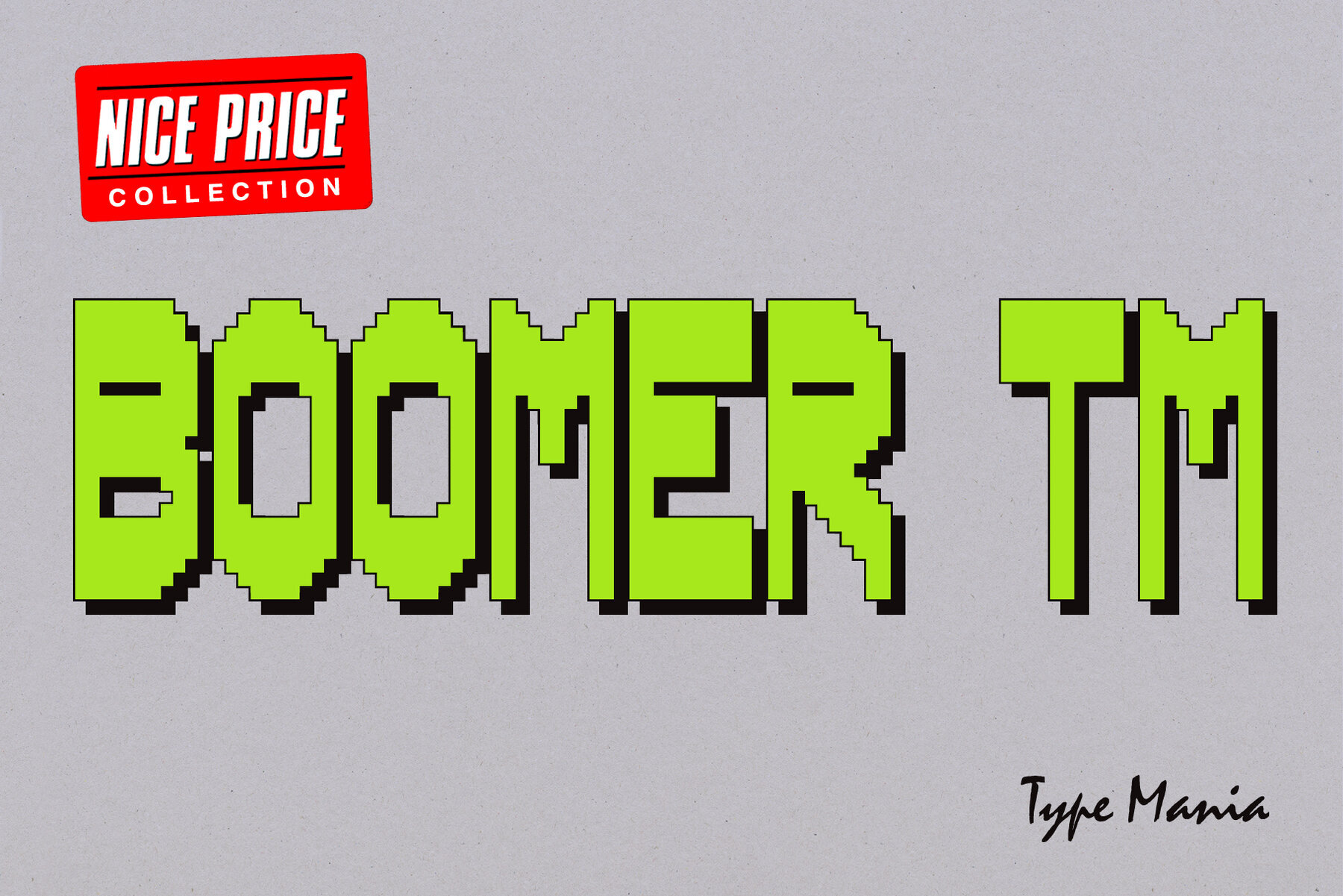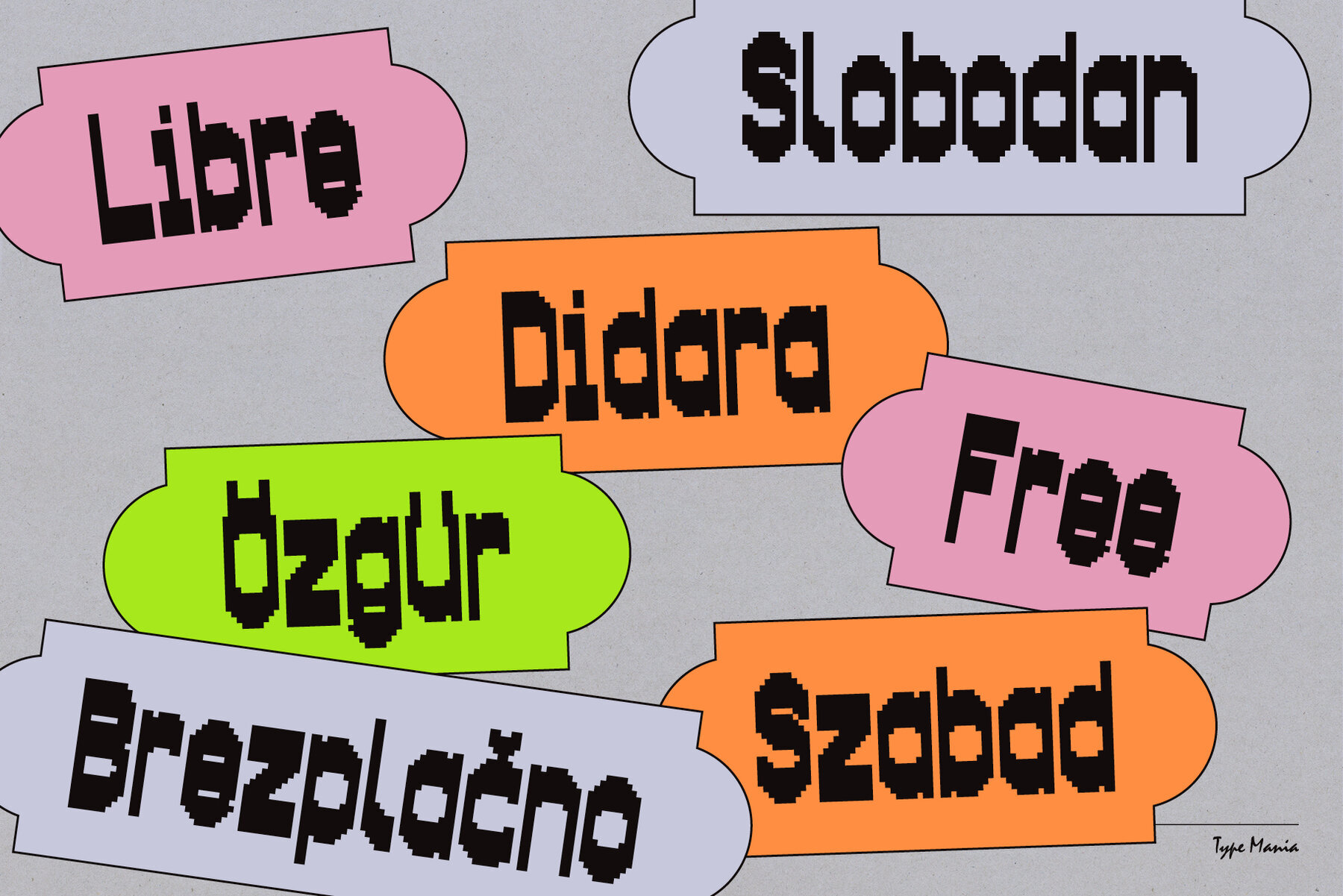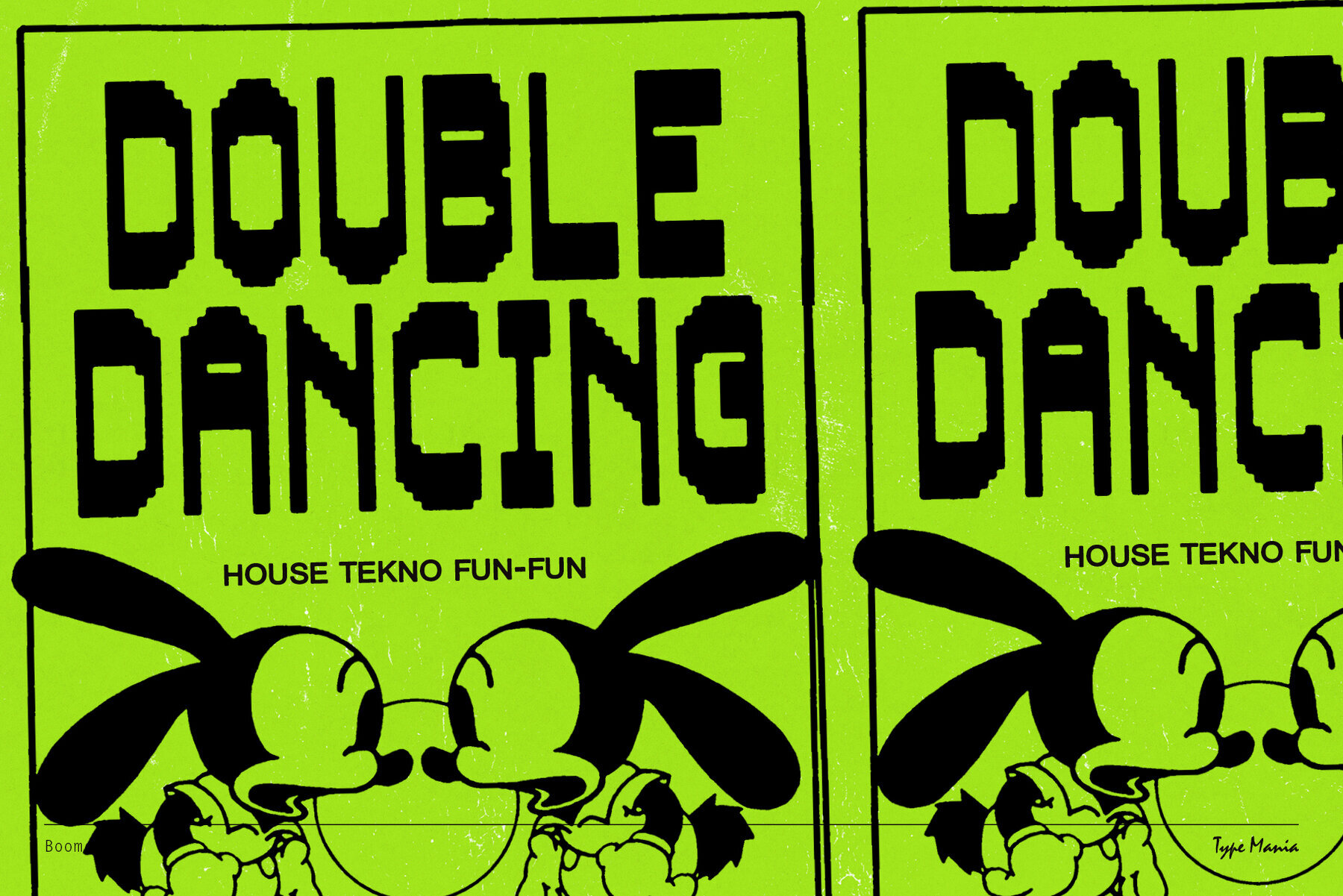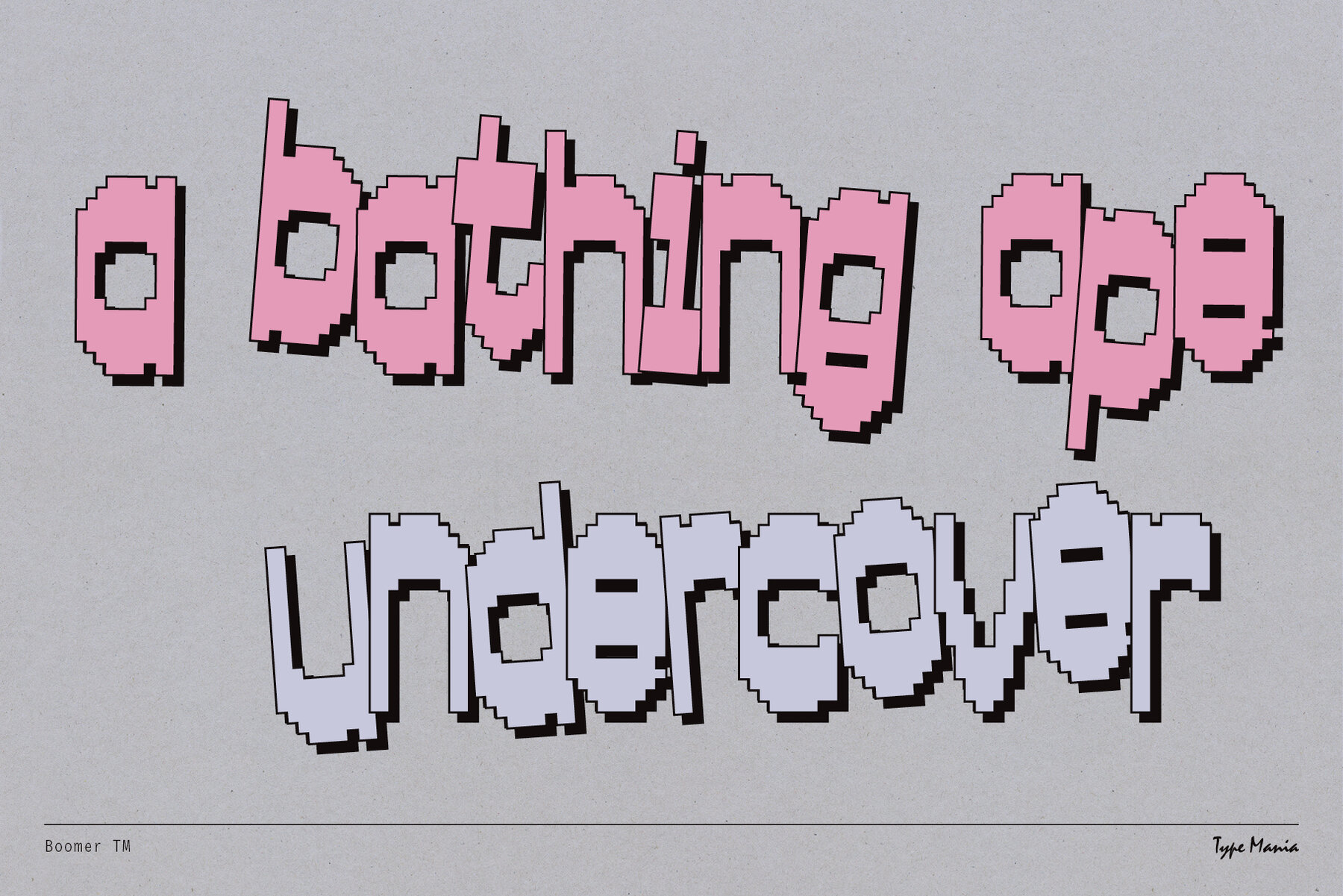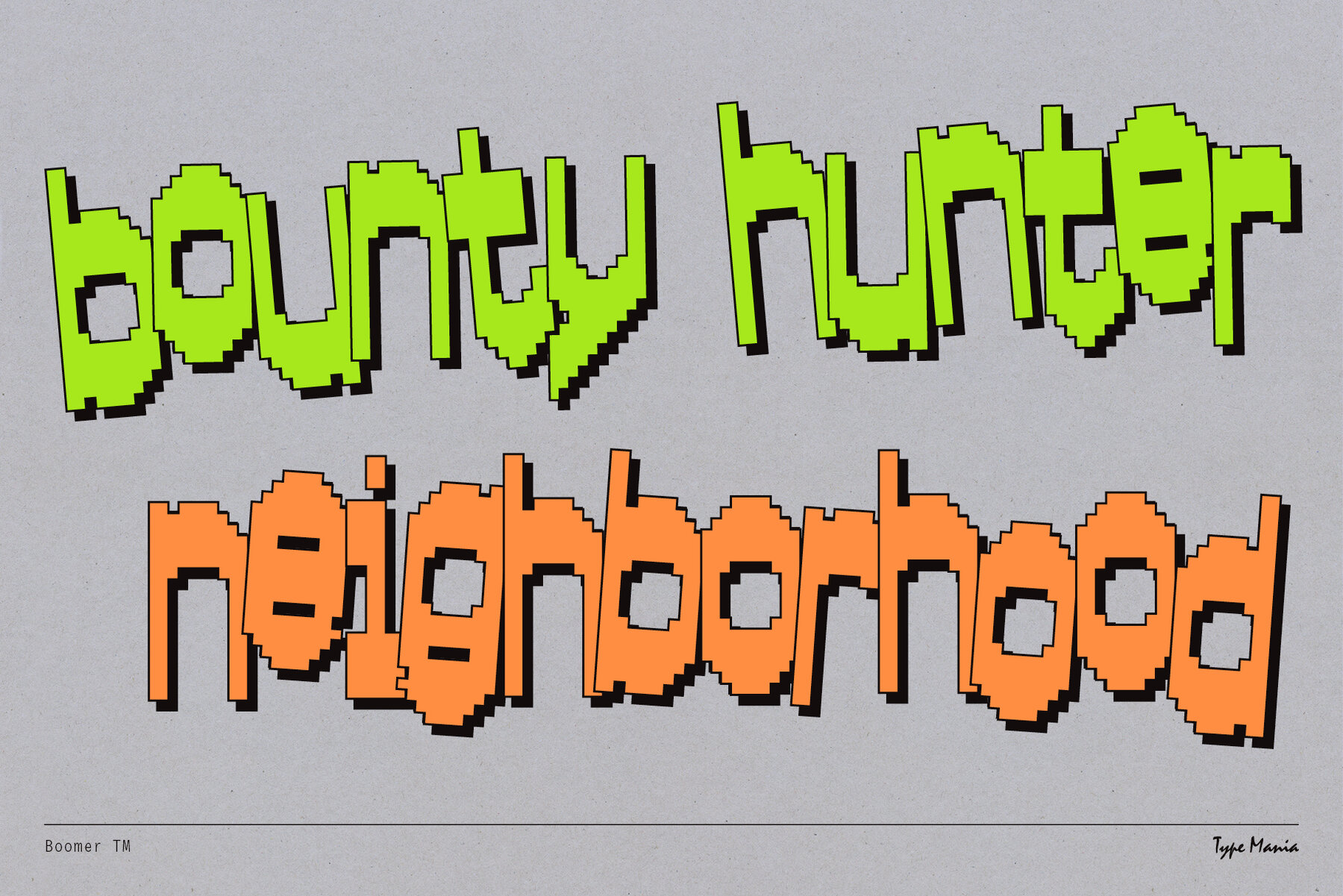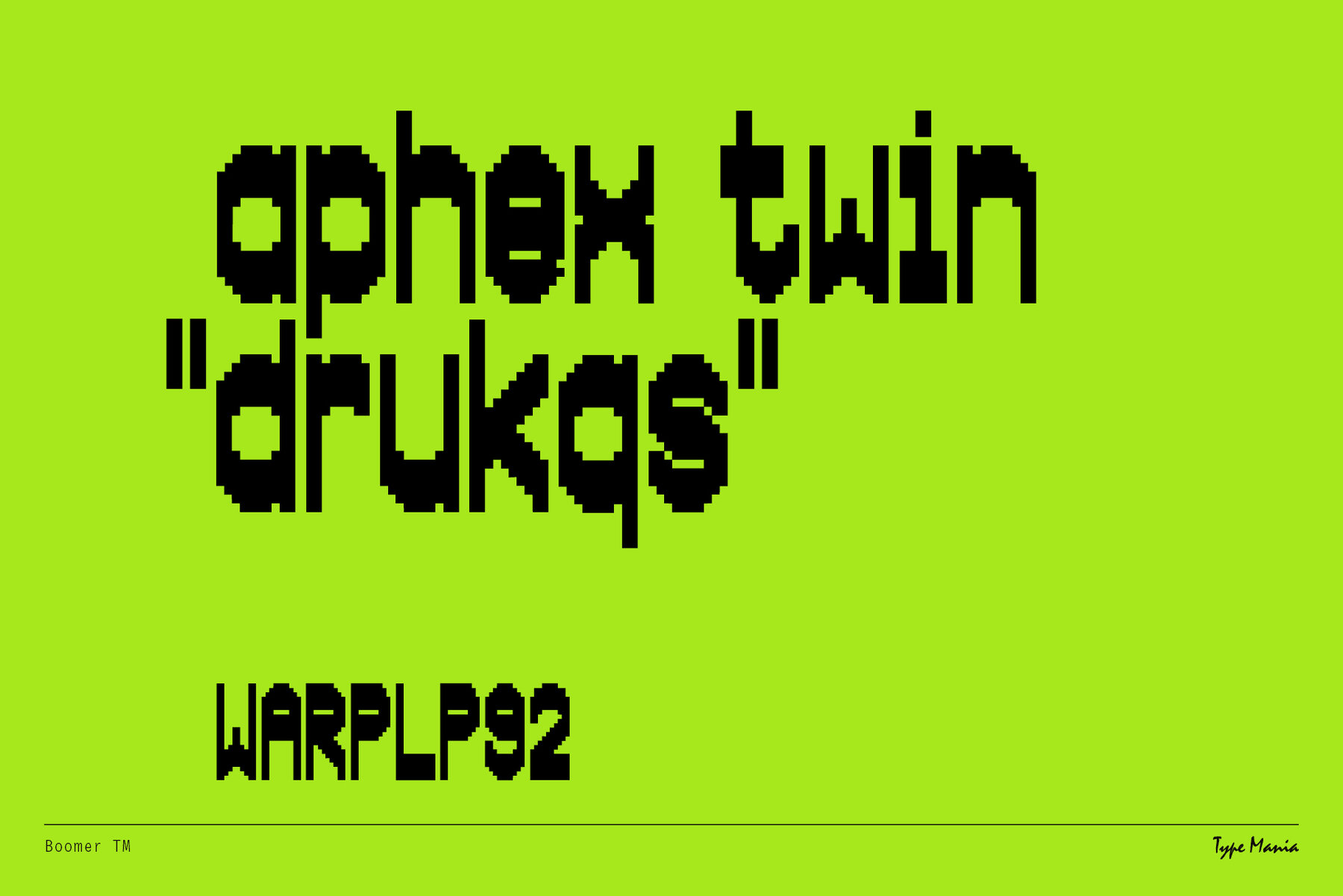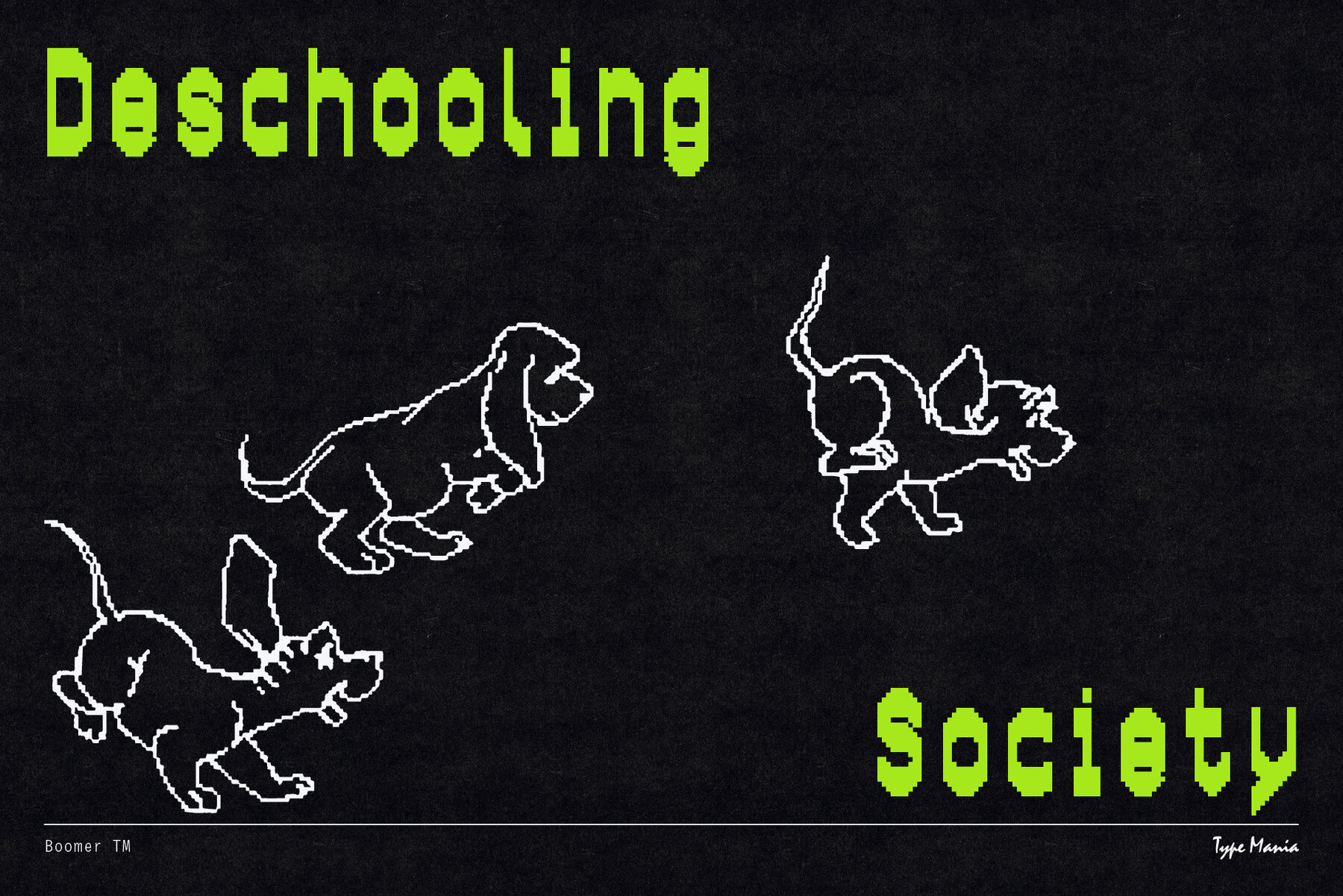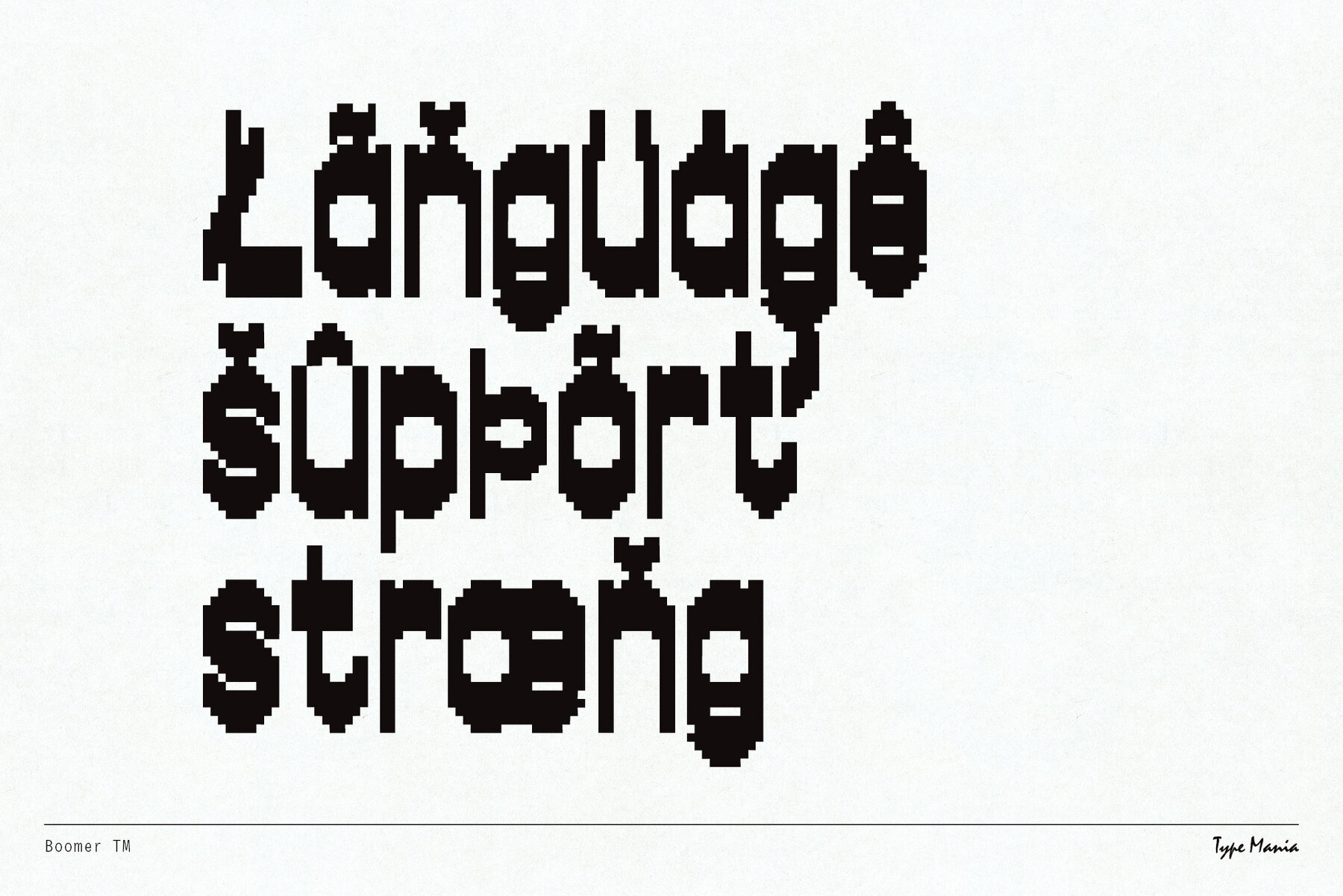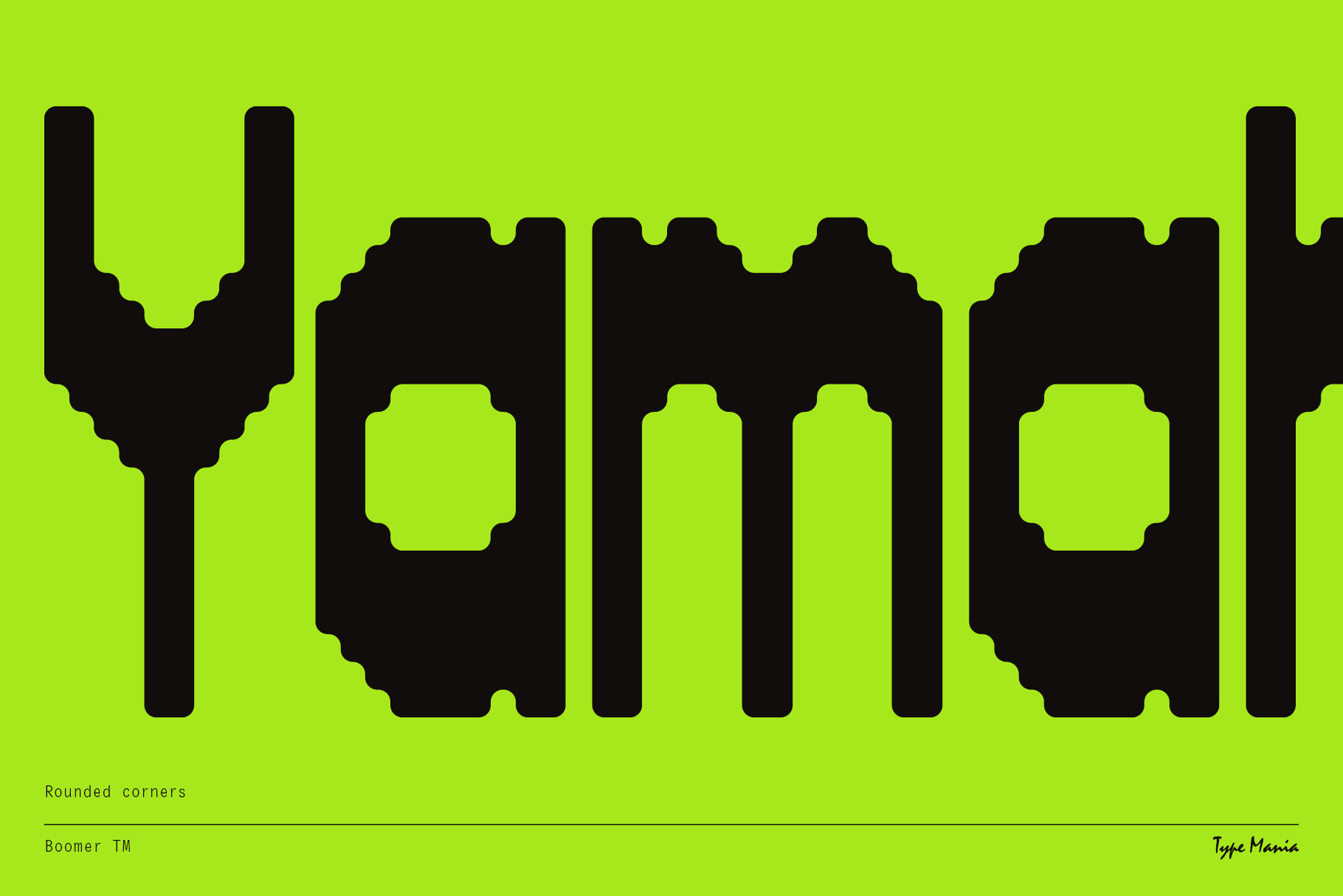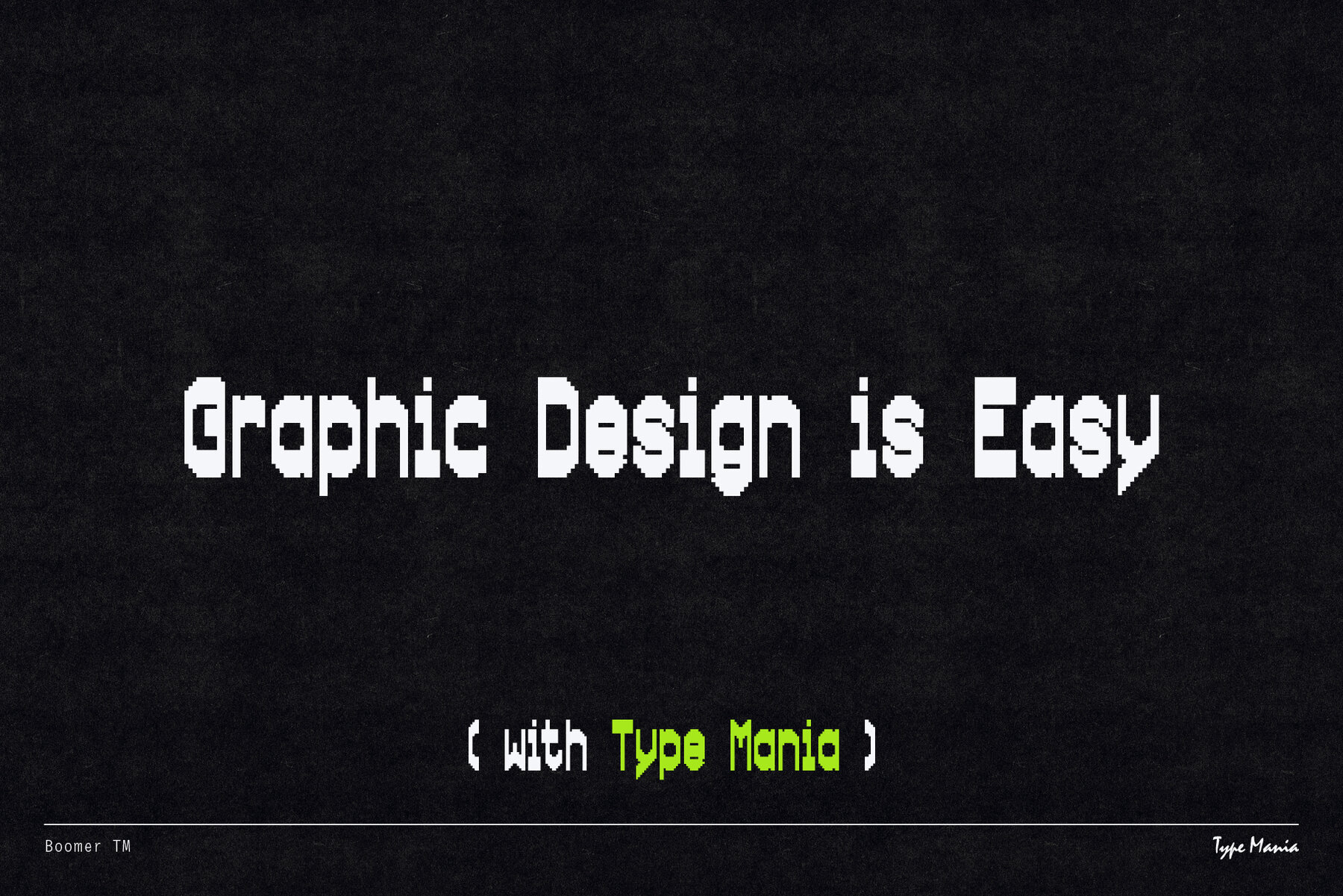
Boomer TM Font
Boomer TM Regular
This font has a distinctly retro, digital aesthetic reminiscent of early computer screen typefaces and video game text. It is a monospaced, pixel-based bitmap font with a blocky, geometric construction that offers a stylized, computer-generated feel. Each character's square, modular form and lack of curves make it ideal for display purposes, particularly in contexts that call for a minimalist, bold statement with a nostalgic touch.